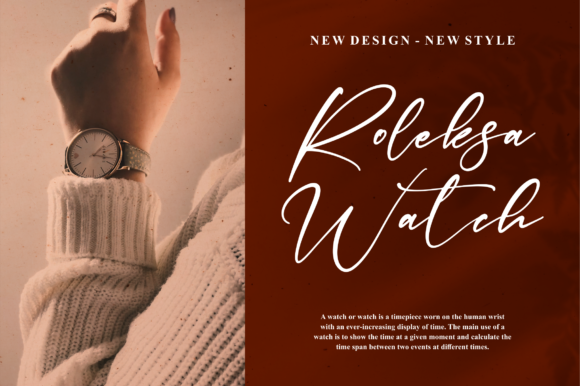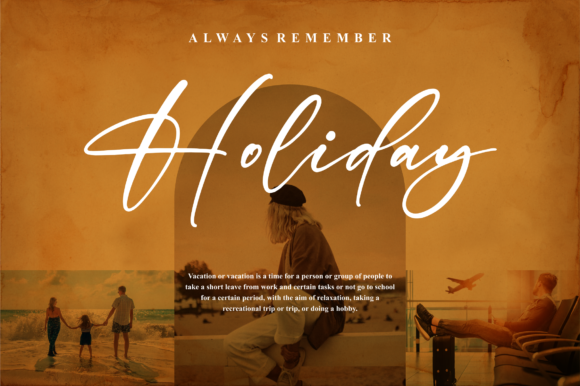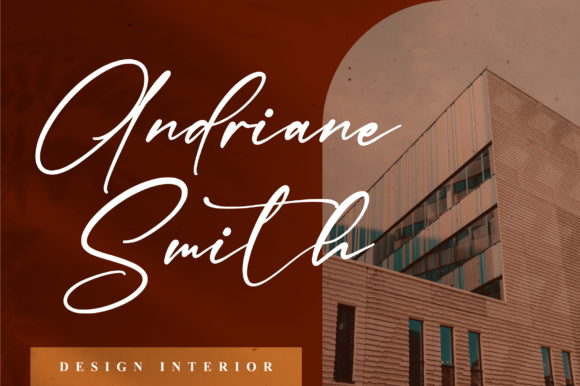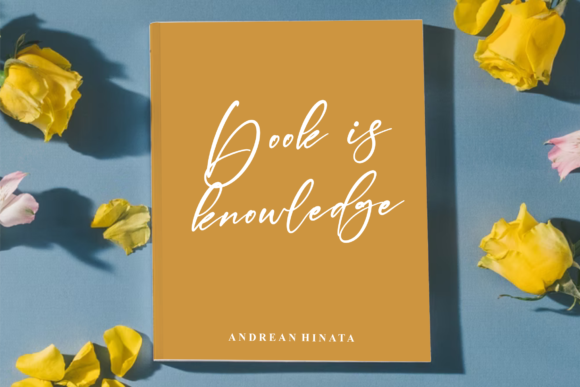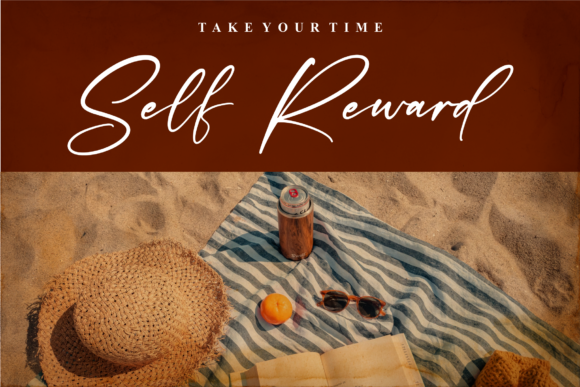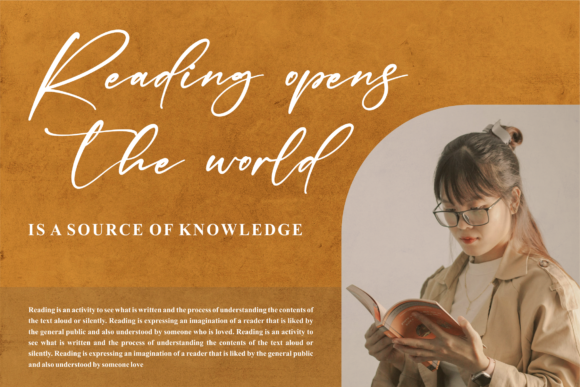
Discover the Elegance of Heather Frontis Font: Elevate Your Designs with Luxury and Sophistication
In the world of typography, fonts play a pivotal role in transforming a design from ordinary to extraordinary. For designers and crafters seeking to infuse their projects with a touch of luxury and a dash of uniqueness, the Heather Frontis Font is an exceptional choice. This beautifully crafted, light handwritten font is not just a typeface; it’s an experience. With its distinctive feel and stunning impact, Heather Frontis is poised to revolutionize the way you approach design.
The Unique Charm of Heather Frontis
Heather Frontis Font stands out with its elegant, handwritten aesthetic that exudes sophistication and refinement. Its light, airy texture brings a sense of delicacy and grace to any design, making it perfect for projects that demand a high level of luxury and poise. Whether you’re working on branding, packaging, stationery, or digital content, Heather Frontis adds a spark of elegance that elevates your work to new heights.
PUA Encoding: Unlocking Creative Potential
One of the most significant advantages of the Heather Frontis Font is its PUA (Private Use Area) encoding. This feature allows designers to access a vast array of glyphs and ligatures easily, providing unparalleled creative freedom. With PUA encoding, you can seamlessly incorporate the intricate details and flourishes that make Heather Frontis so unique into your designs, ensuring that every project is not only visually stunning but also rich in character and personality.
Applications of Heather Frontis Font
The versatility of Heather Frontis Font makes it suitable for a wide range of design applications. Here are just a few ways you can leverage this beautiful font to enhance your projects:
- Branding and Logotypes: Create memorable and luxurious brand identities with Heather Frontis. Its unique and elegant appearance ensures that your logo stands out and communicates your brand’s commitment to quality and sophistication.
- Packaging Design: Elevate your product packaging with a touch of luxury. Heather Frontis adds a premium feel to any product, making it perfect for high-end brands looking to make a lasting impression.
- Stationery and Invitations: Add a touch of elegance to your stationery, invitations, and greeting cards. Heather Frontis brings a level of sophistication that’s sure to impress.
- Digital Content: From blog headers to social media graphics, Heather Frontis can add a professional and stylish touch to your digital content, helping you to stand out in a crowded online space.
Why Choose Heather Frontis Font?
With so many fonts available, why should Heather Frontis be your go-to choice? Here are a few compelling reasons:
- Unique Aesthetic: Heather Frontis offers a distinctive look that’s hard to find elsewhere. Its unique feel ensures that your designs are instantly recognizable.
- Ease of Use: Thanks to PUA encoding, using Heather Frontis is straightforward. You can easily access and incorporate the font’s extensive range of glyphs and ligatures into your designs.
- Versatility: Whether you’re working on a luxury brand project or a personal craft, Heather Frontis adapts beautifully to various design needs.
- Support for Creative Projects: Ideal for crafters and designers, Heather Frontis can bring a professional and polished look to handmade products, blogs, and more.
The Heather Frontis Font is more than just a typeface; it’s a design statement. Its elegant, handwritten aesthetic, combined with the practical benefits of PUA encoding, makes it an invaluable asset for designers and crafters looking to infuse their projects with luxury and sophistication. Whether you’re aiming to create a stunning brand identity, luxurious packaging, or simply add a touch of elegance to your digital content, Heather Frontis is the perfect choice. Discover the transformative power of Heather Frontis Font and take your designs to new heights of creativity and sophistication.